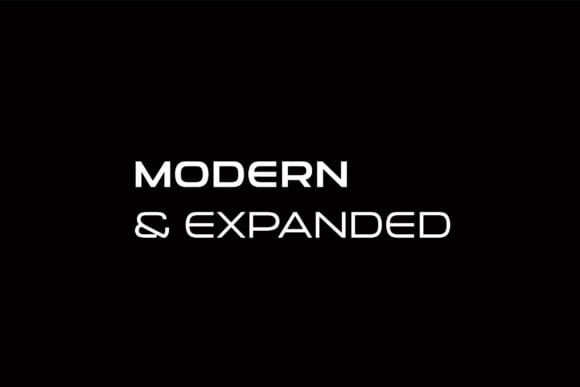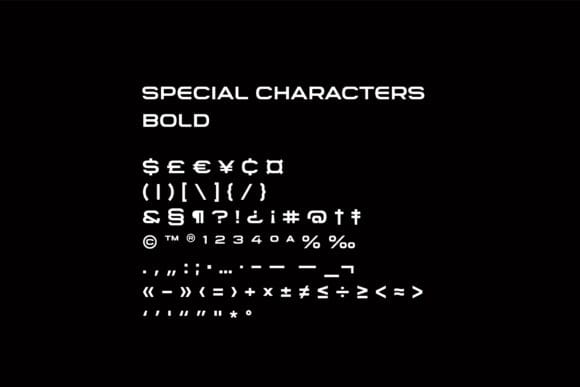
Pigarnos Neue Font
Pigarnos Neue Font is a cool and modern looking display font. It works great for various creations that require a futuristic, fun touch. The only limit is your imagination.